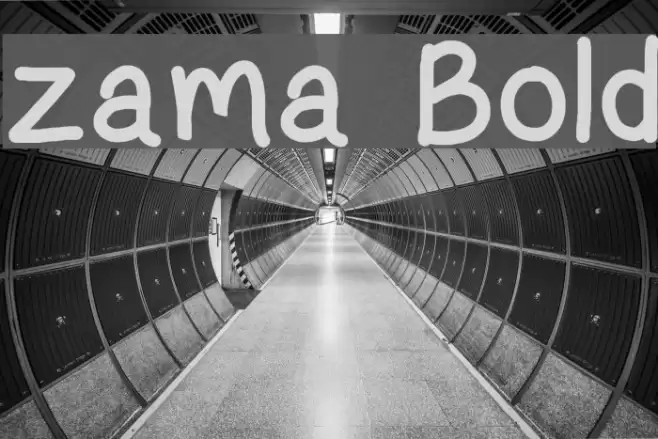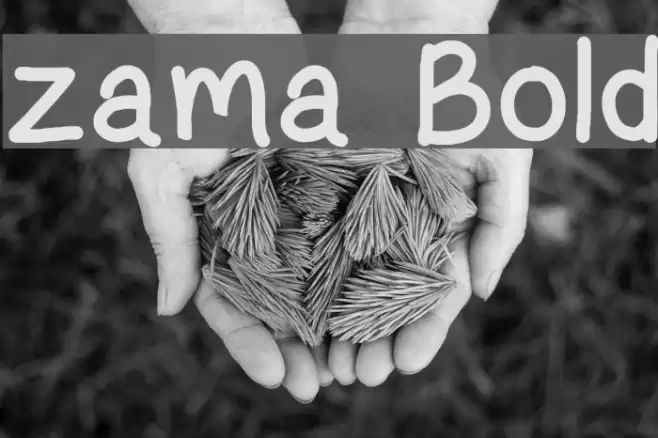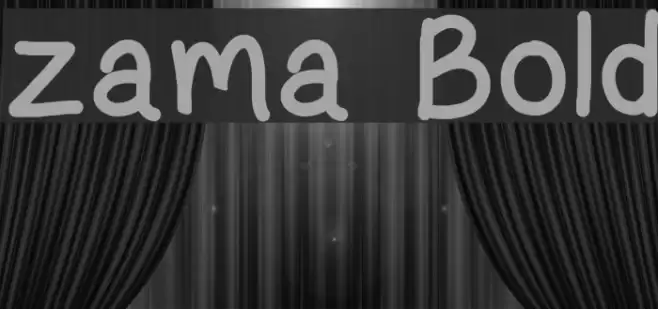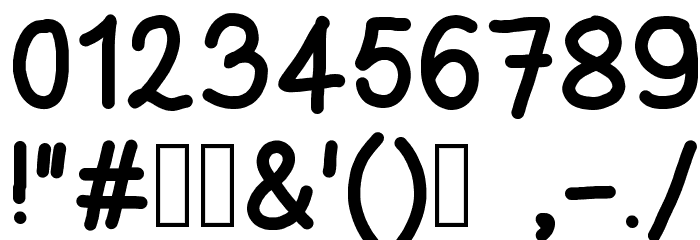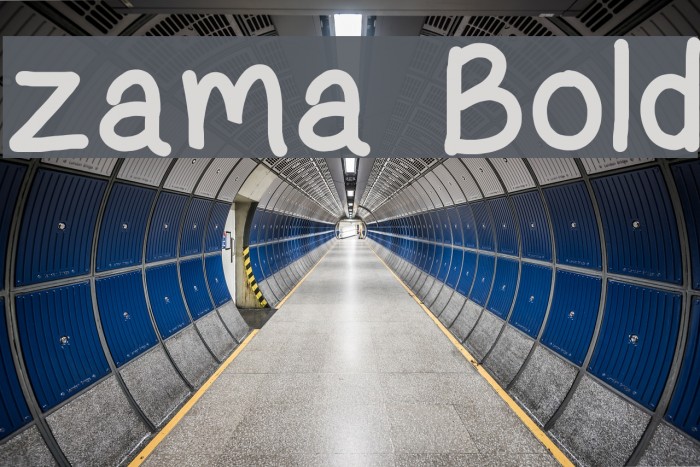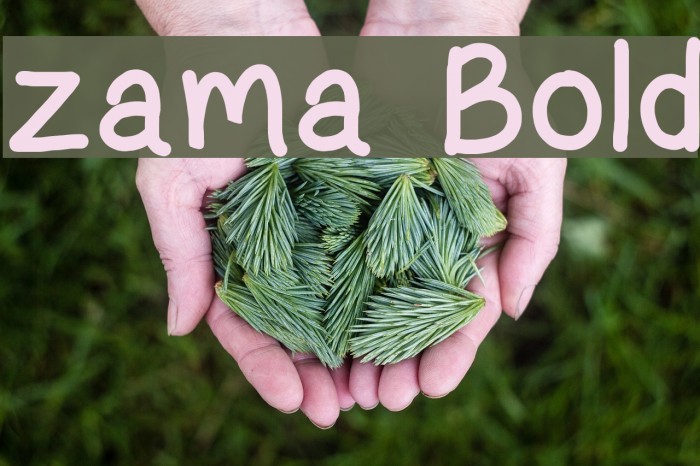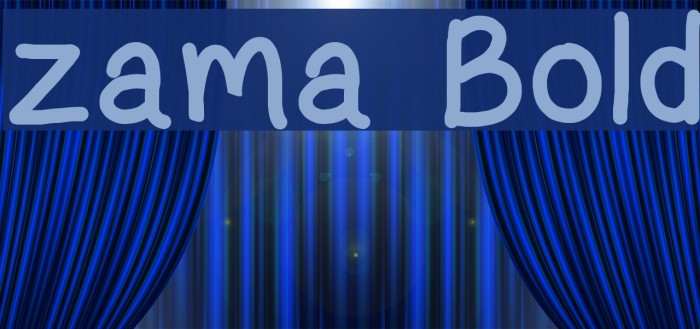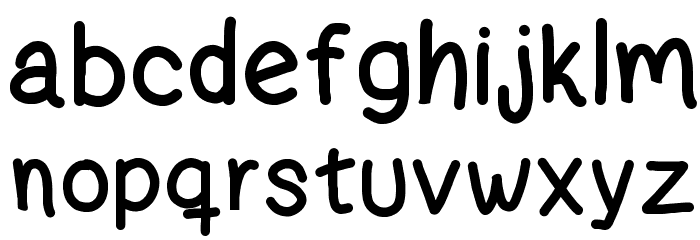
zama Bold Font
zama Bold Description
This font features a playful and casual handwritten style, characterized by its rounded and slightly irregular letterforms. The strokes are consistent in weight, giving it a bold appearance, while maintaining a friendly and approachable feel. The uppercase and lowercase letters are well-balanced, with a slight slant that adds to its informal charm. The numerals and special characters are designed to match the overall aesthetic, making it versatile for various applications. Its unique style makes it stand out, yet it remains legible and clear.
A bold, playful handwritten font with rounded, slightly irregular letterforms from Handwritten fonts.
- Proposed Projects: Ideal for children's books, casual branding, greeting cards, and playful posters.
- Overall Style: Casual, Playful
- Use Case: Headlines, Logos, Informal Text